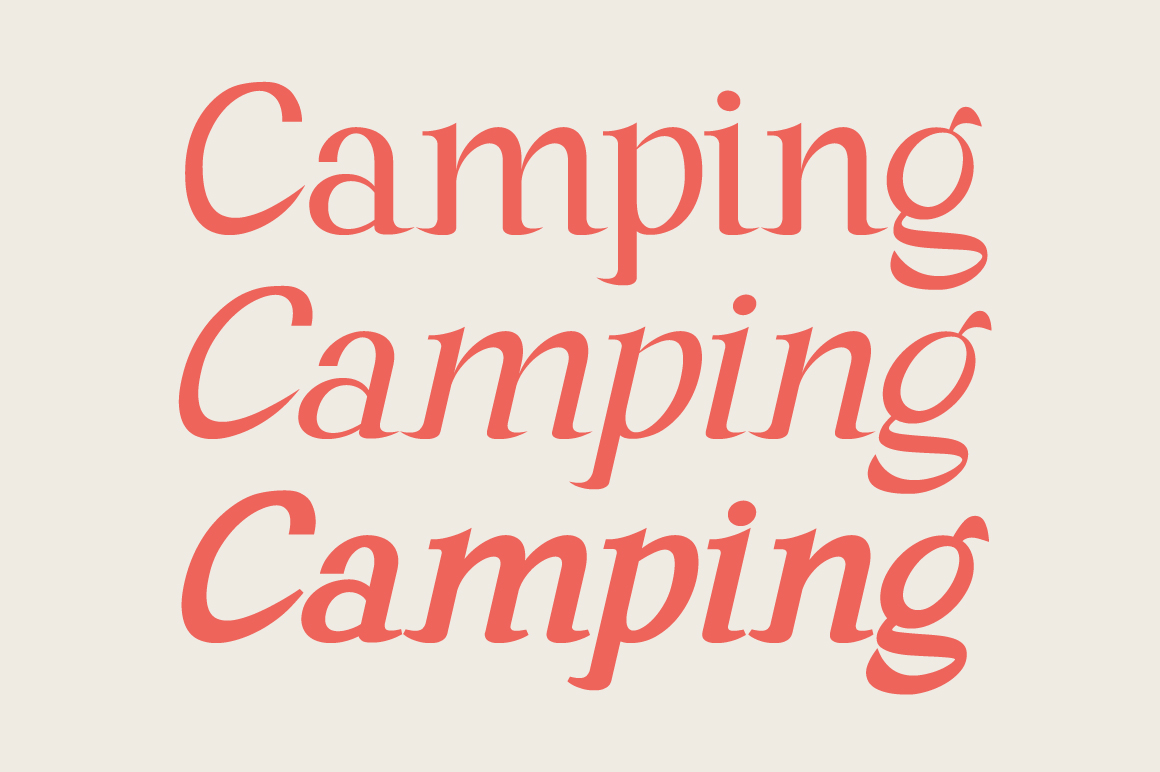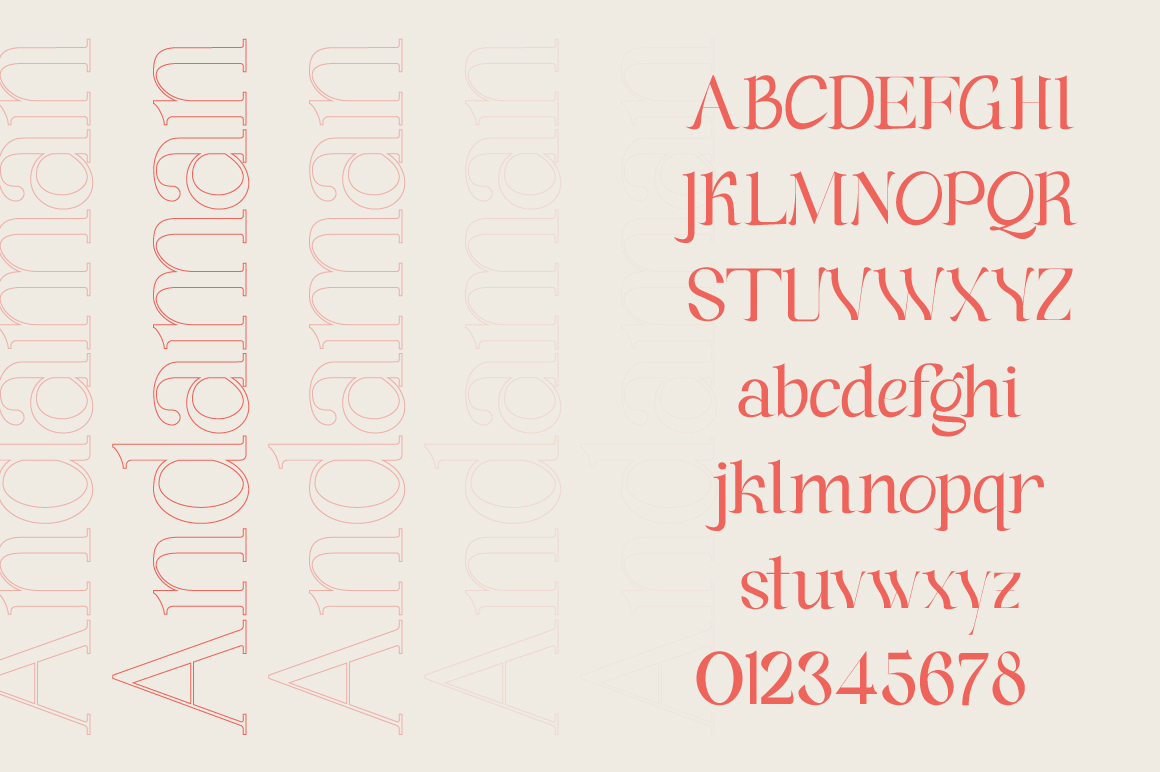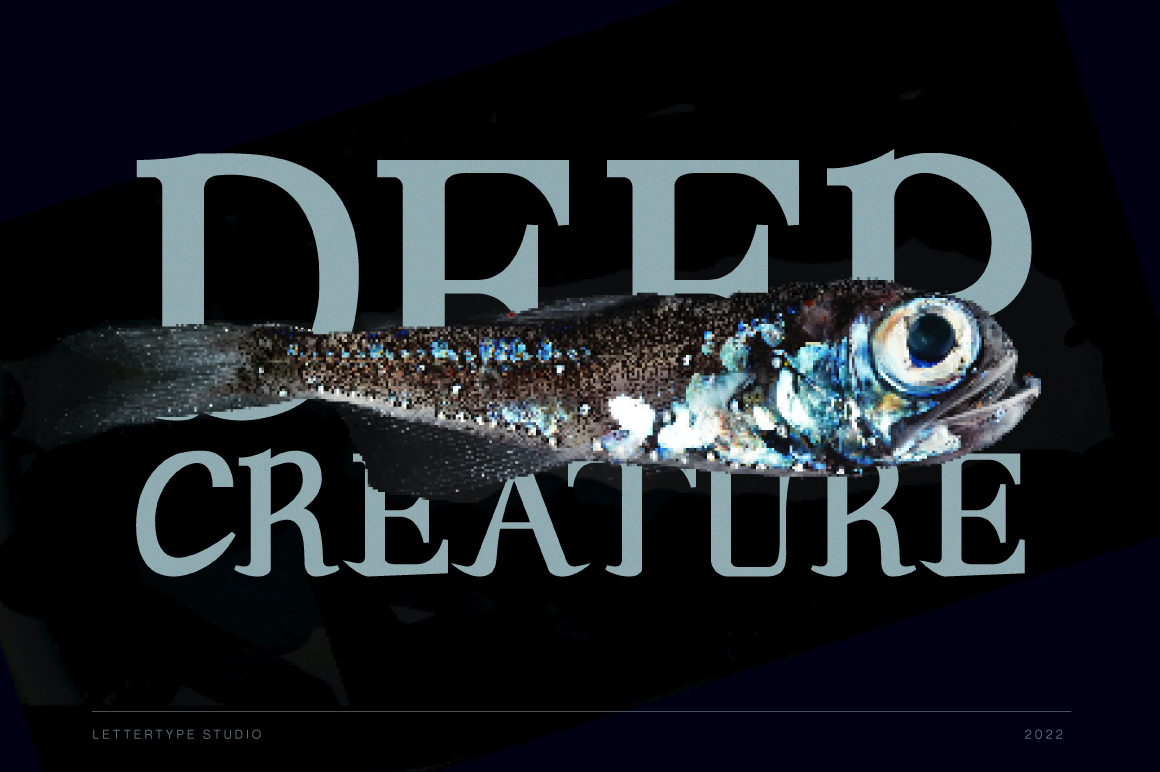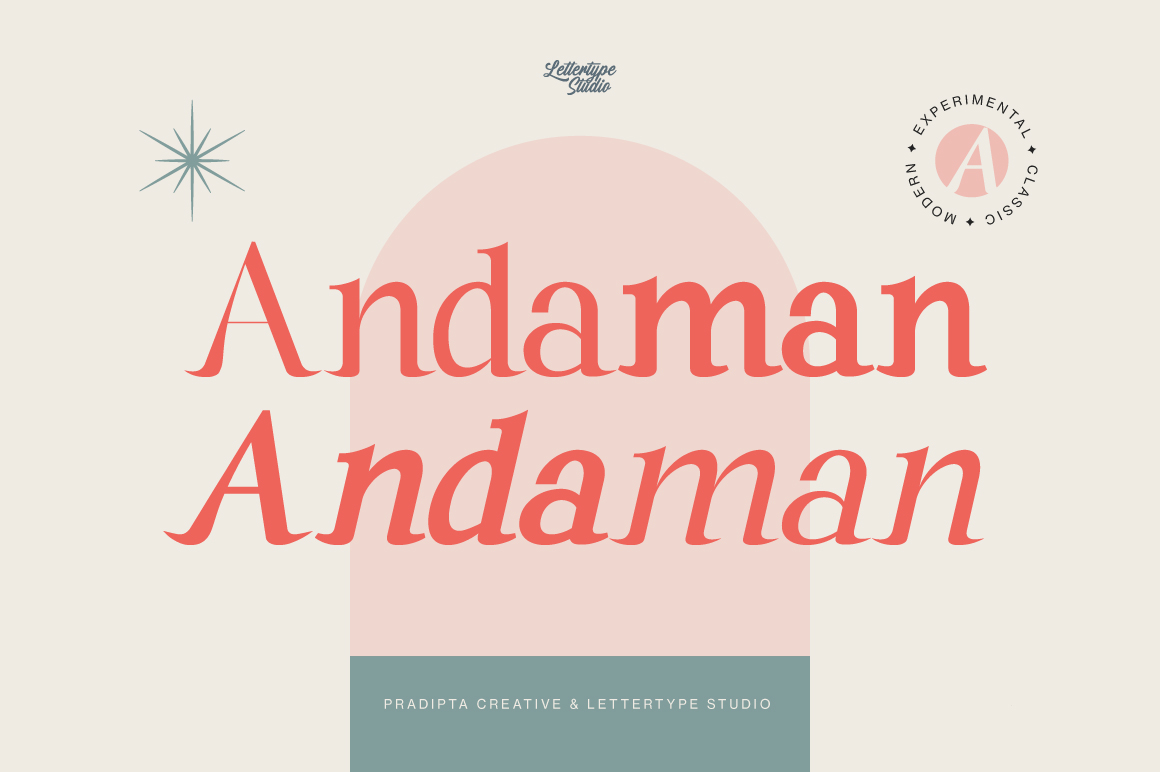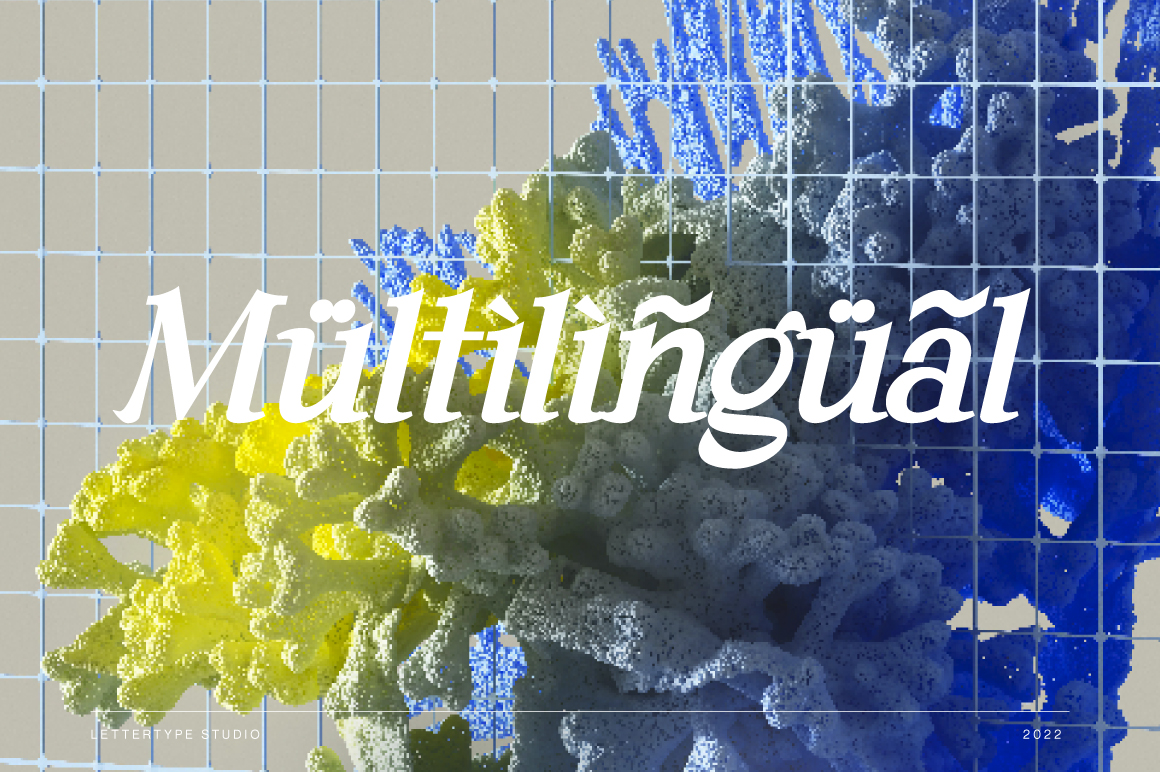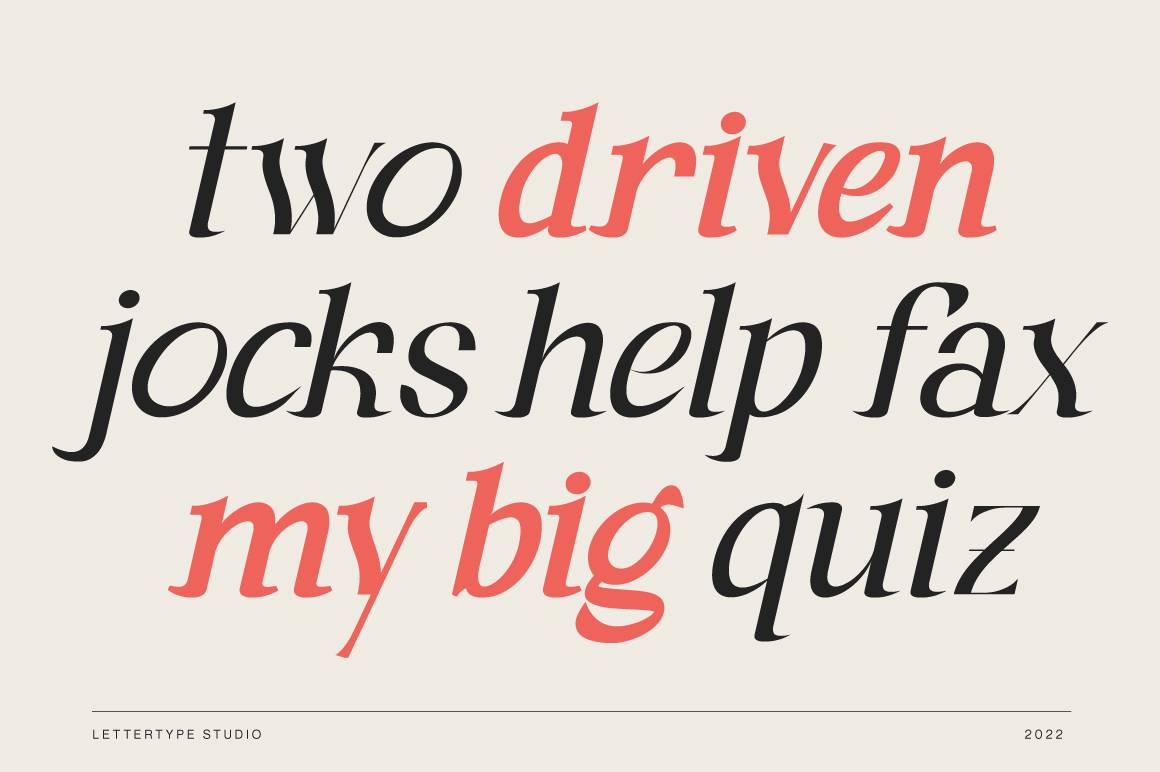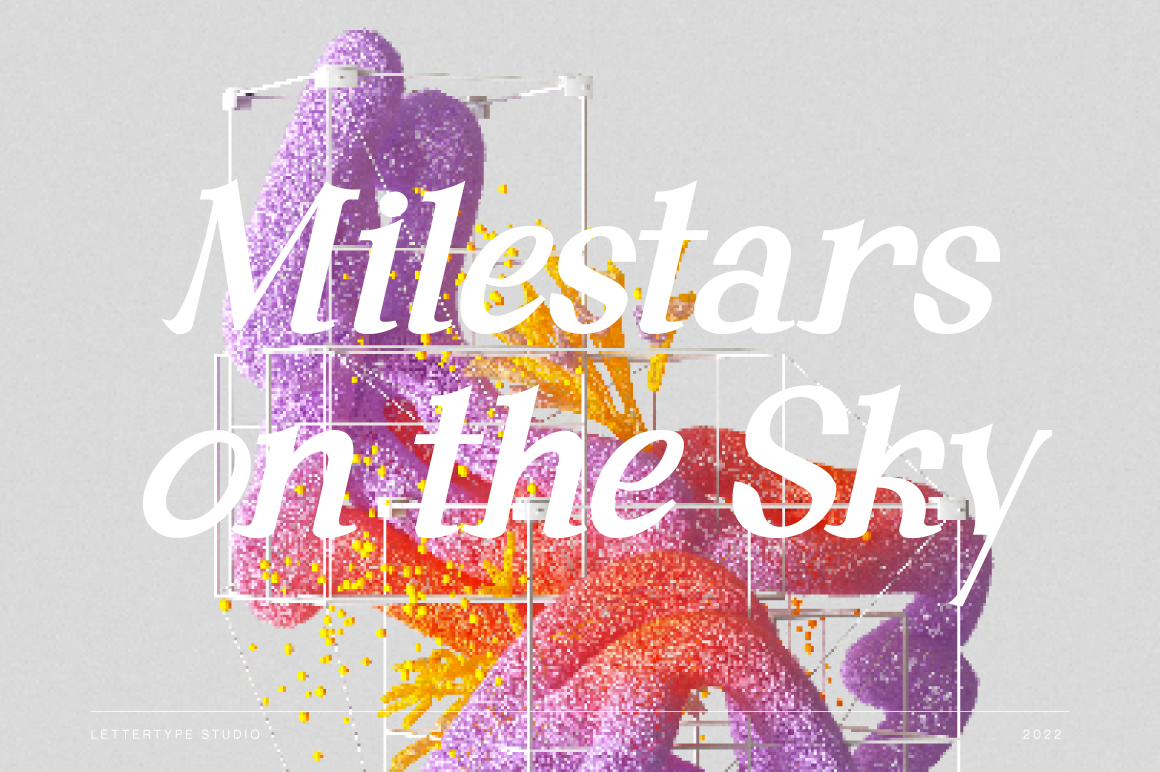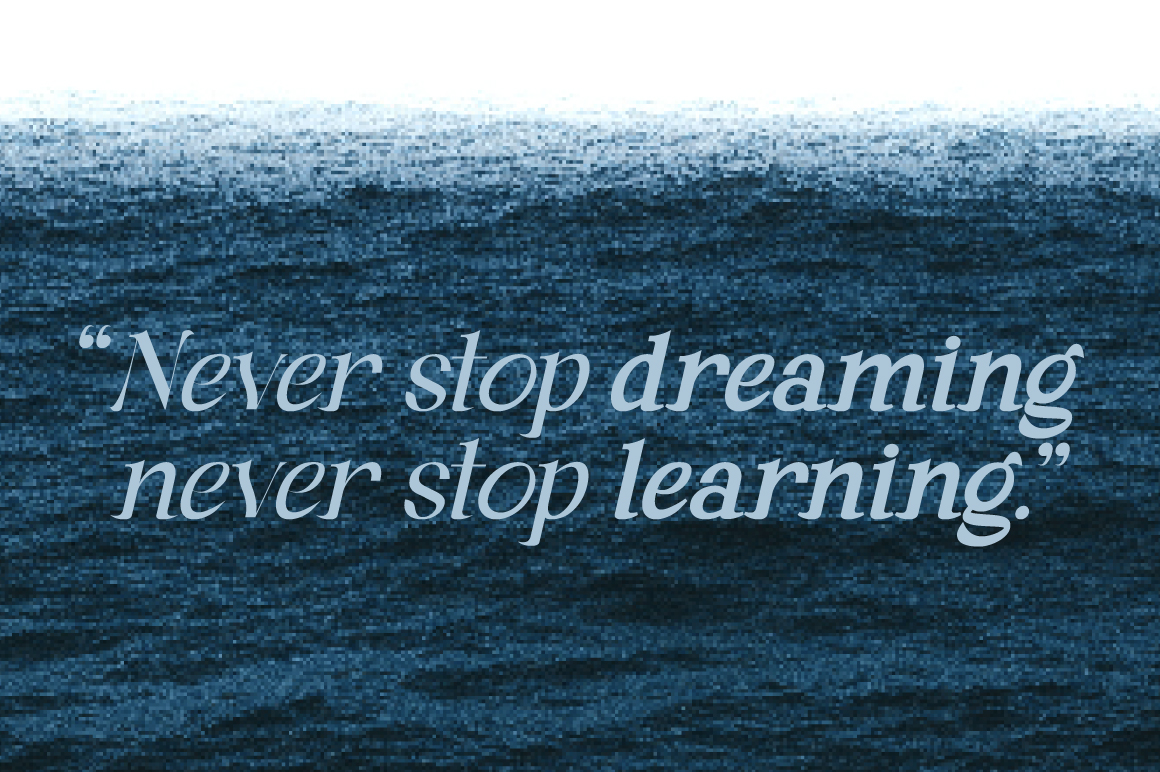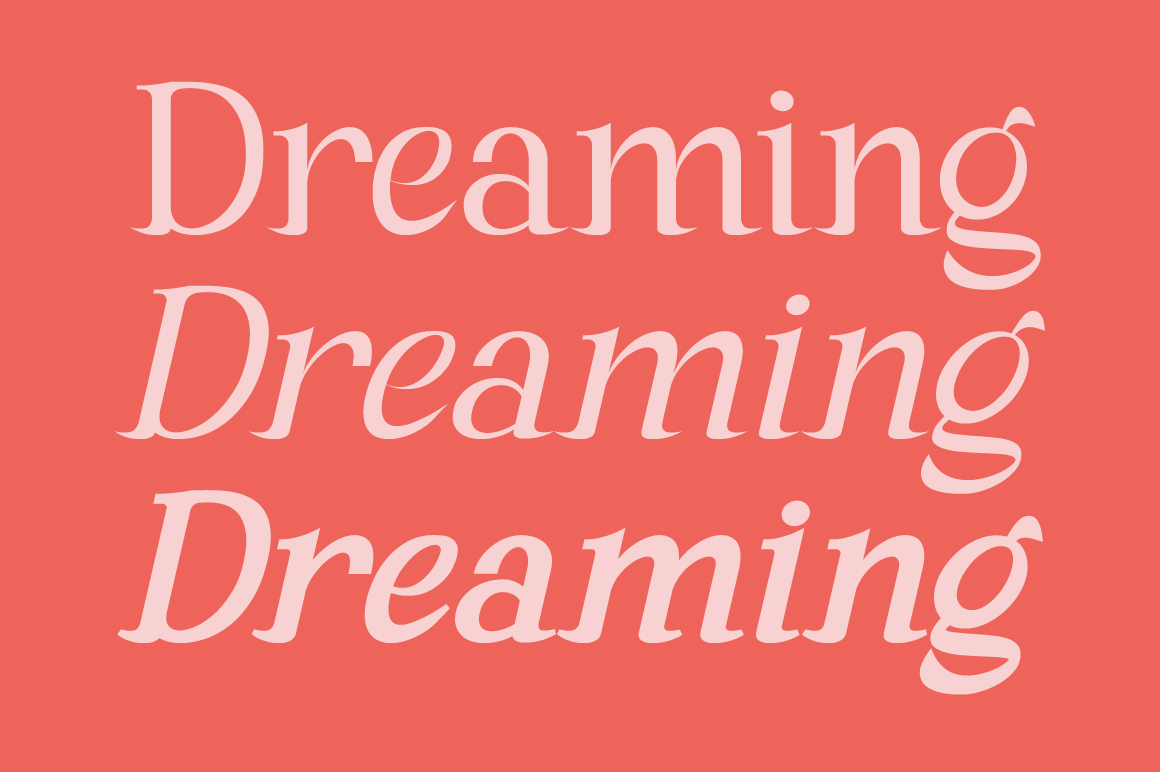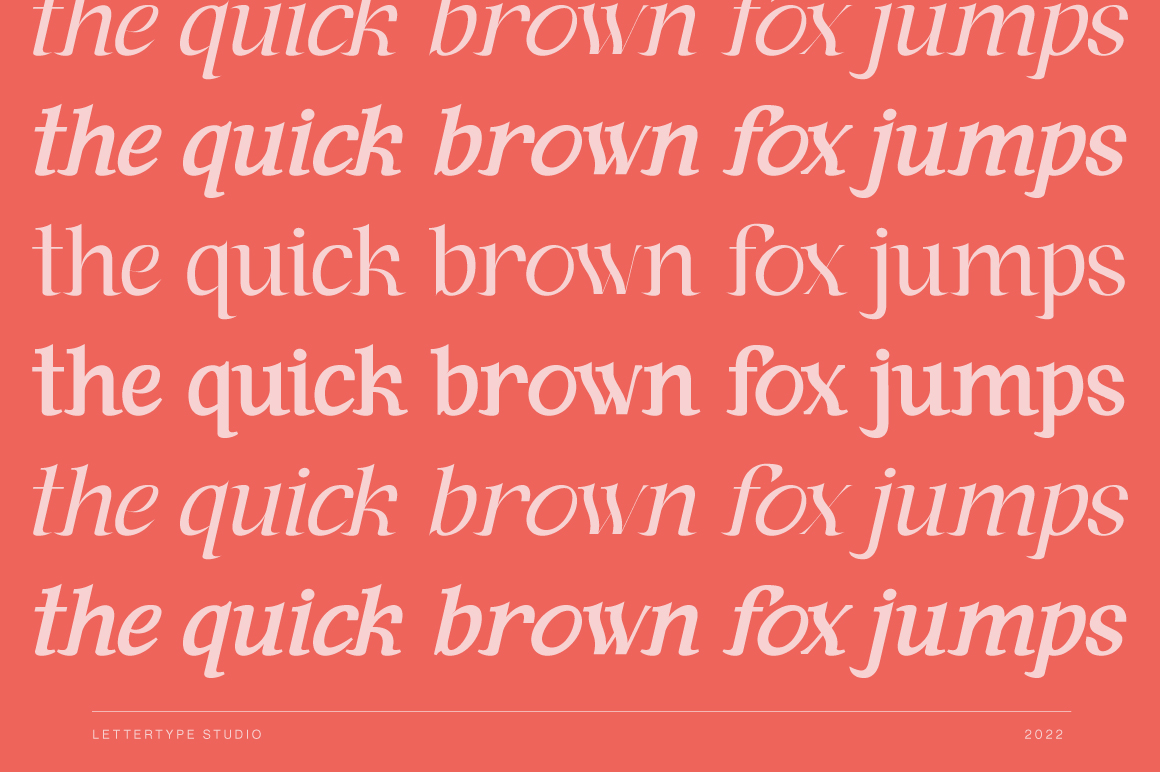
Andaman - Regular
Andaman - Italic
Andaman - Bold
Andaman - Bold Italic
We are introducing “Andaman” an experimental and modern serif font.
This font will be perfect for your logo design, branding, clothing, signage, posters, wedding invitations, cosmetics or fashion and so much more!
Andaman will help your project or brand have a nostalgic and modern look at the same time.
Andaman Features:
• Lowercase, Uppercase, and Ligatures
• Tons of Stylistic Alternates (40 styles glyph a – z)
• Numerals & Punctuation
• Accented Characters